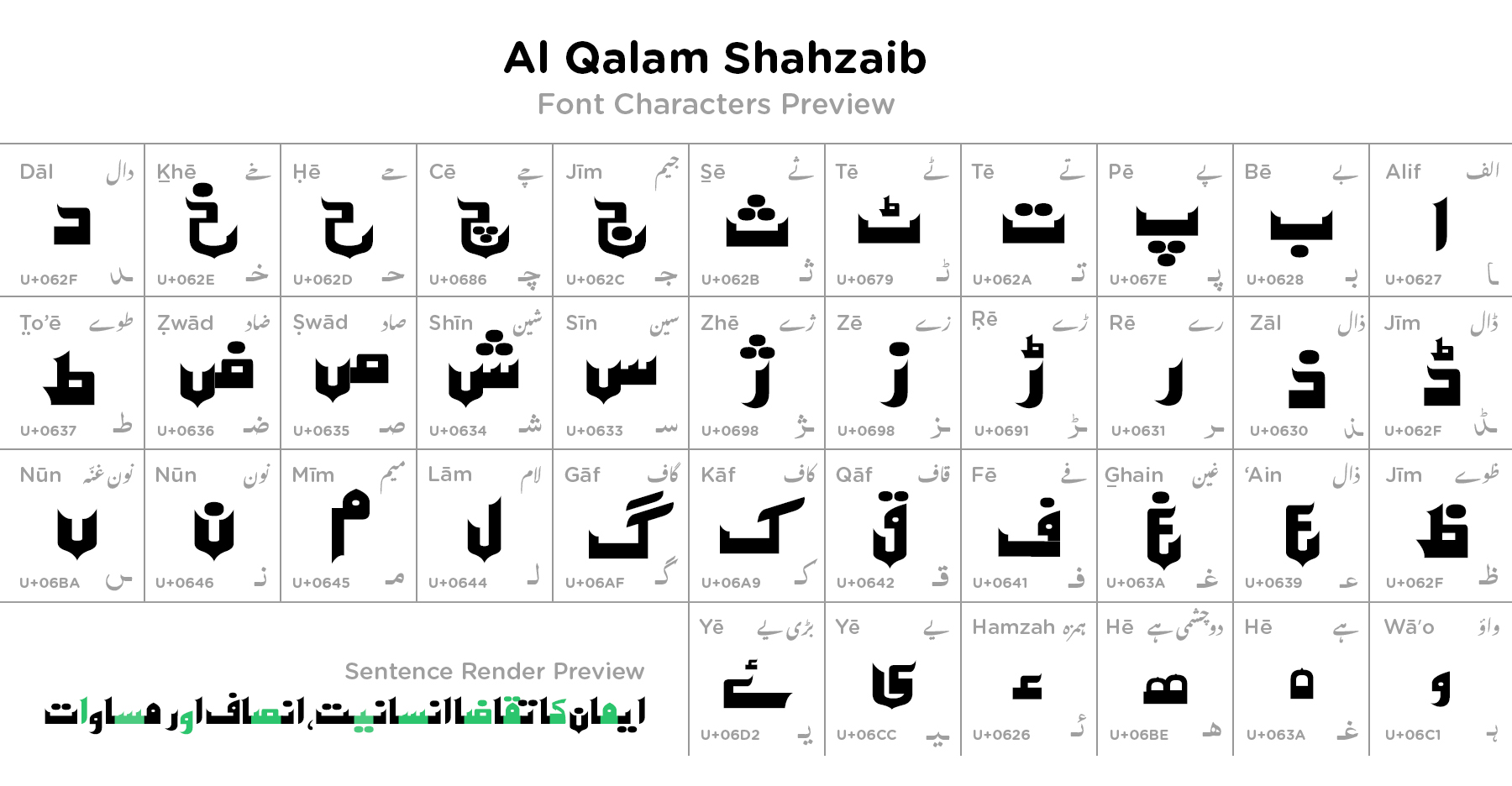
Al Qalam Shahzaib is a modern, fat, filled, and wide Urdu font released on January 30, 2016. It was designed by font designers Attari Qadri and Muhammad Ishtiaq Ali Attari from Faisalabad, Pakistan. Inspired by the Naskh script with modern influences, this font style embodies a fat, filled, and wide aesthetic with small negative spaces. With a glyph count of 497 and 444 characters and symbols, it offers extensive language compatibility, including Urdu, Arabic, Latin, Persian, and more.
The font features a dynamic thickness and impactful, changing strokes, adding visual interest to its decorative appearance. While it's best suited for short text due to readability challenges over longer periods, it finds applications in branding, advertising, logos, Quran writing, invitations, and gift cards. Vertical characters are mostly straight but have decorative elements like pointy edges and sharp corners. Letters are wide and highly decorative, with non-constant spacing between letters. Despite its decorative nature, Al Qalam Shahzaib maintains high legibility on screens, making it suitable for various design projects where visual impact is desired.